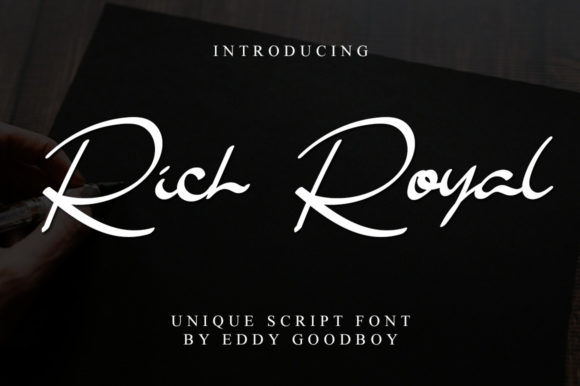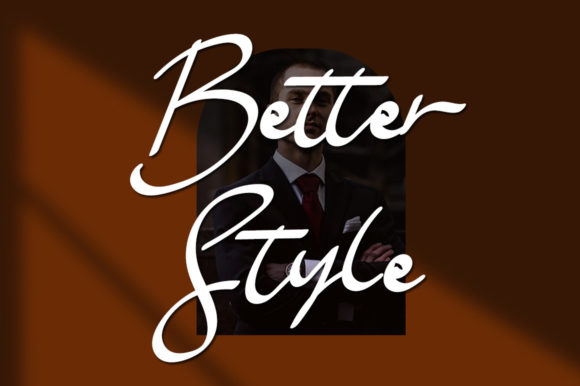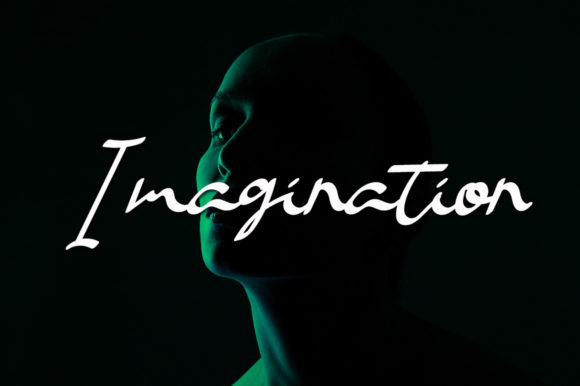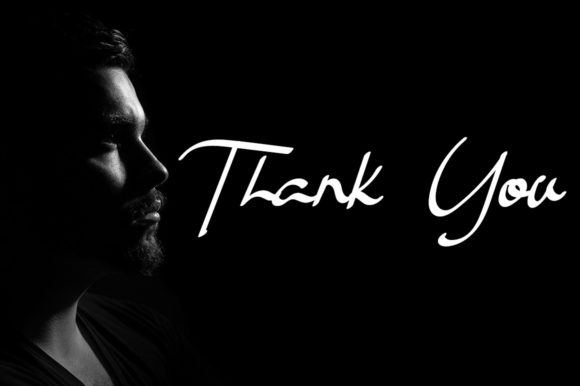
About Rich Royal Font
Rich Royal is a font that embodies beauty, relaxation, and a sense of effortless elegance. Its flowing script style brings a touch of sophistication to any project, while its clean and fresh design ensures versatility across a wide range of contexts.
The unique character of Rich Royal allows it to seamlessly blend into both formal and informal projects. Whether you’re working on a formal invitation, a casual social media post, or anything in between, this font has the ability to enhance the visual appeal of your design.
The relaxed and graceful nature of Rich Royal’s letterforms adds a sense of ease and comfort to your text. This makes it an excellent choice for a variety of applications, from wedding invitations and greeting cards to branding materials and packaging. Its ability to convey a laid-back elegance ensures that your designs exude a sense of charm and approachability.
The font’s versatility extends to its usage across different media. Whether your project is destined for digital platforms or print materials, Rich Royal maintains its elegant appearance and readability. It can be used as both headline and body text, allowing you to maintain a consistent visual identity throughout your design.
One of the notable features of Rich Royal is its ability to capture attention while remaining visually appealing. Its flowing script draws the eye, making it an excellent choice for headlines and focal points in your design. It can also add a touch of personalization to quotes, captions, and other textual elements.
Rich Royal’s elegance doesn’t sacrifice legibility—it remains easily readable even at smaller sizes. This ensures that your message is effectively conveyed to your audience, regardless of the platform or medium.
Whether you’re aiming for a refined and polished look or a more relaxed and approachable feel, Rich Royal has the versatility to adapt to your creative vision. Its clean and elegant design, combined with its relaxed and flowing script, make it a font that can truly elevate the visual impact of your projects.
In summary, Rich Royal is a font that effortlessly combines beauty, relaxation, and elegance. Its adaptability and versatility allow it to shine in various formal and informal settings, making it a valuable asset for designers seeking to create visually appealing and engaging projects. With Rich Royal, you have a font that can bring a touch of sophistication and charm to any creative endeavor.